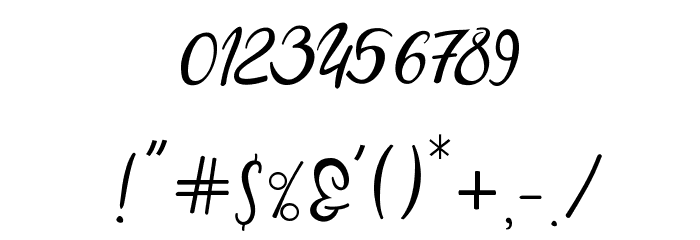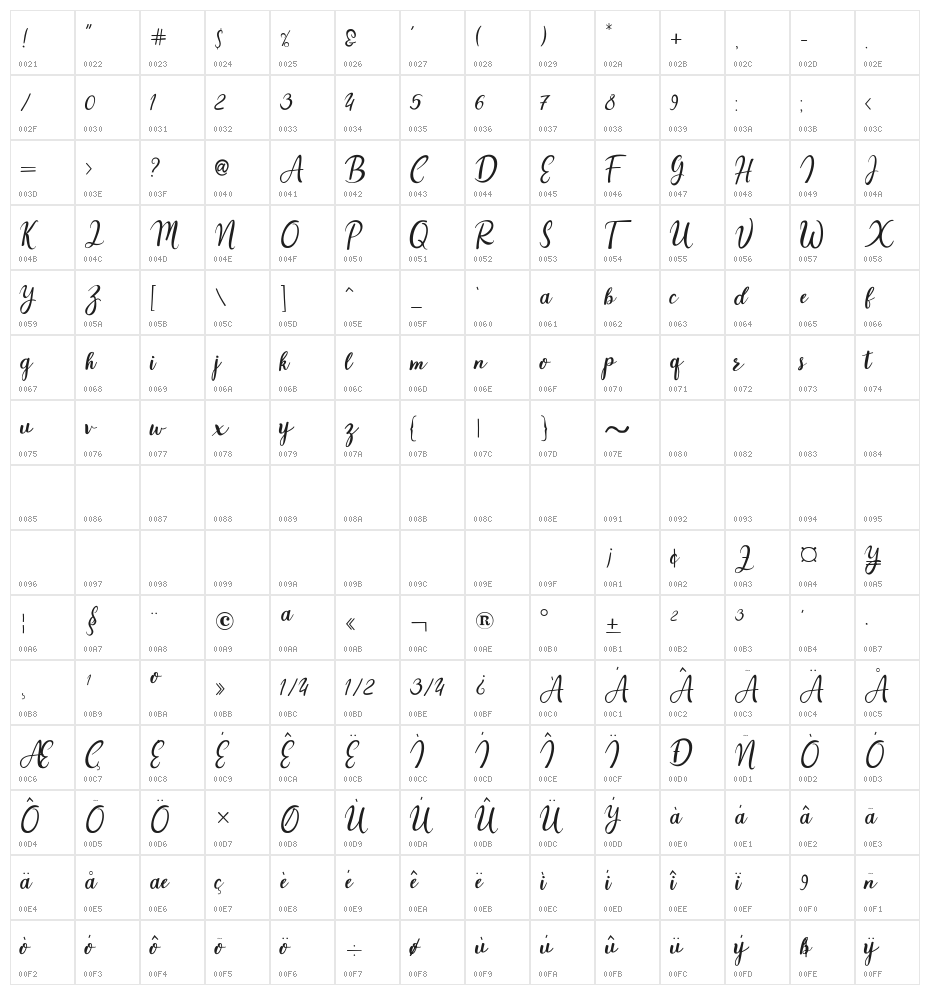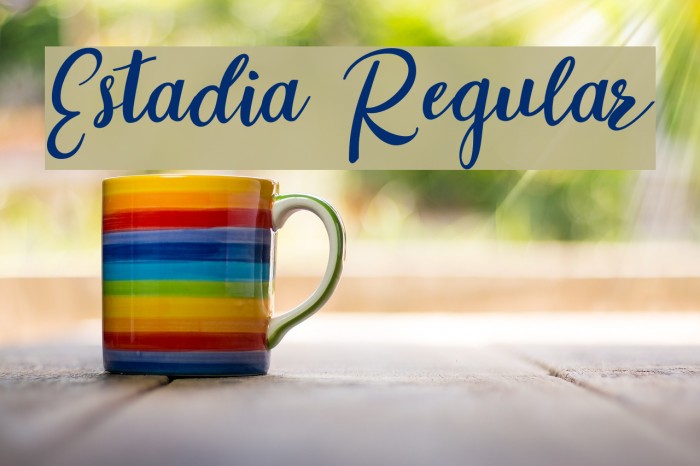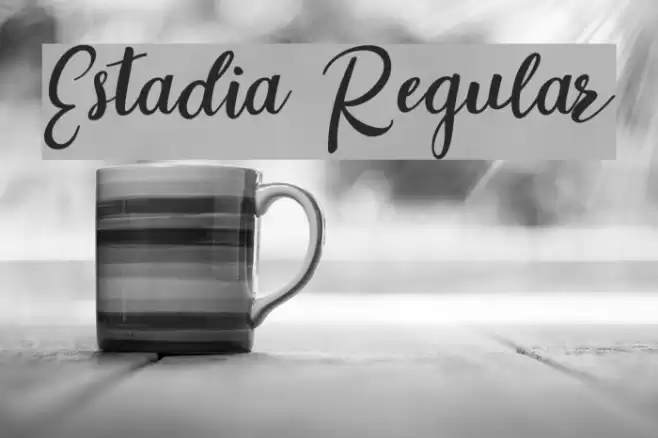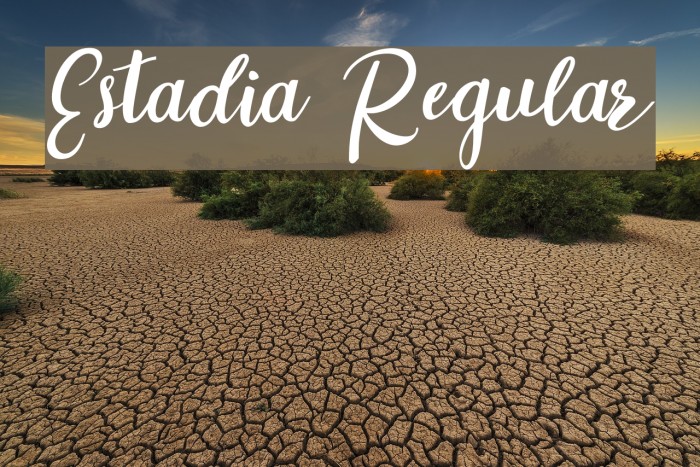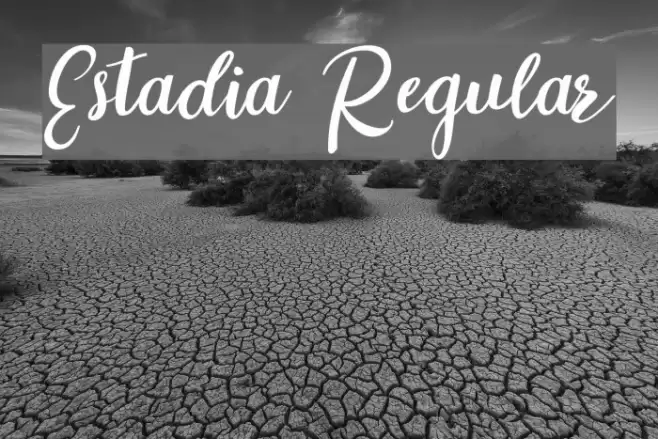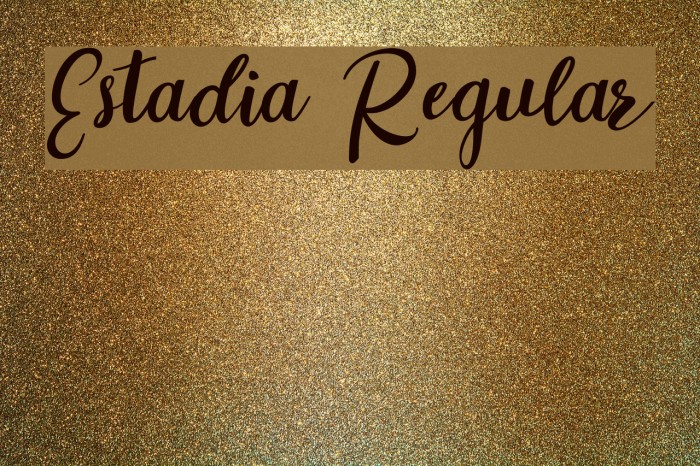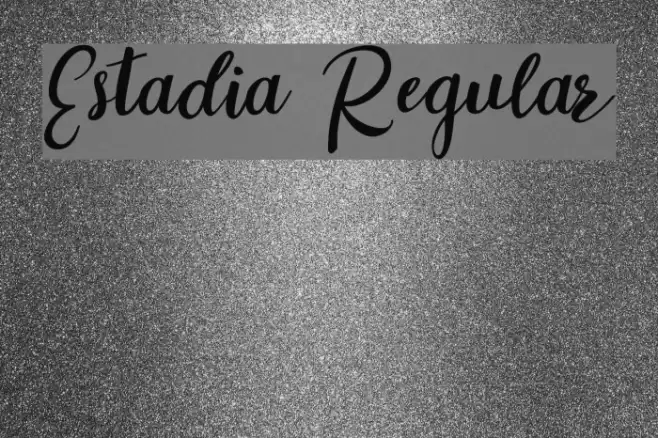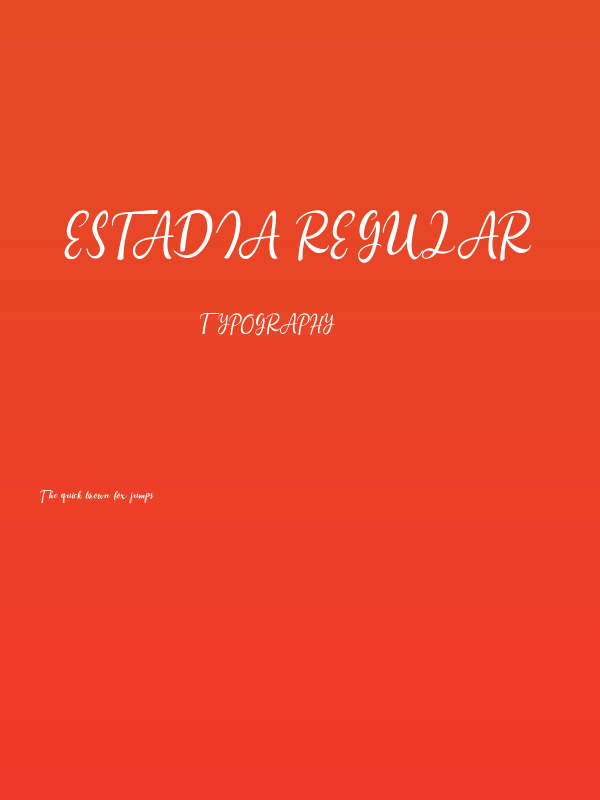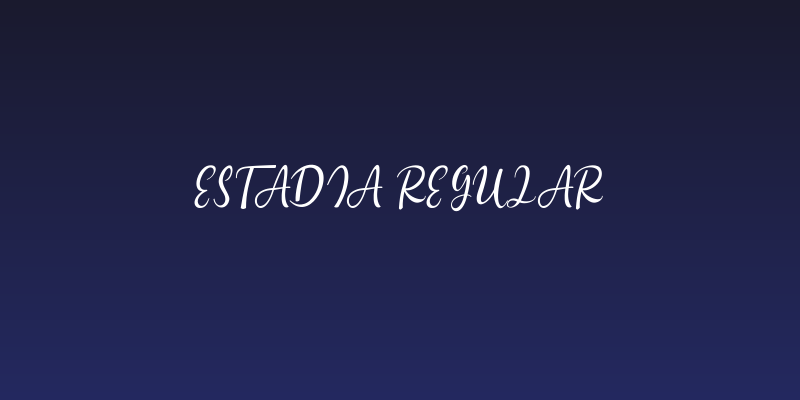
Estadia Regular Font
Estadia Regular Description
This font exudes elegance and fluidity, characterized by its cursive script style. The uppercase letters are gracefully elongated with smooth curves and delicate flourishes, giving a sense of sophistication. The lowercase letters maintain a consistent flow, with some characters featuring subtle loops and swashes that enhance their charm. The numerals are clear and maintain the script's elegant style, ensuring readability. Special characters are thoughtfully designed to match the overall aesthetic, making them suitable for decorative purposes. This script font is perfect for adding a touch of class and refinement to any design project.
| Proposed Projects | Ideal for wedding invitations, elegant branding, greeting cards, and upscale packaging. |